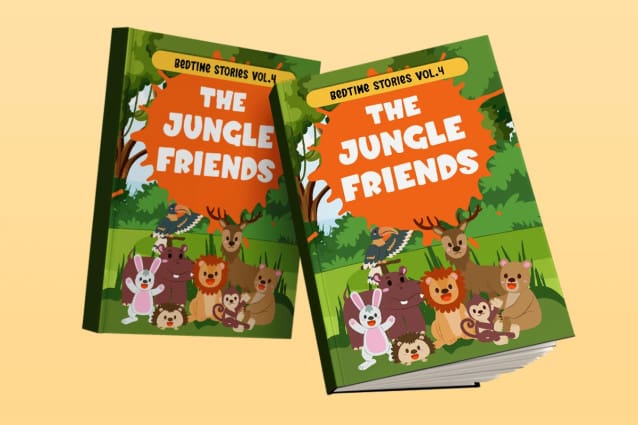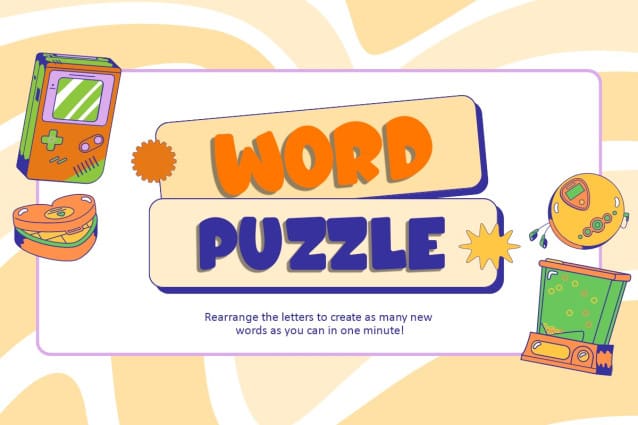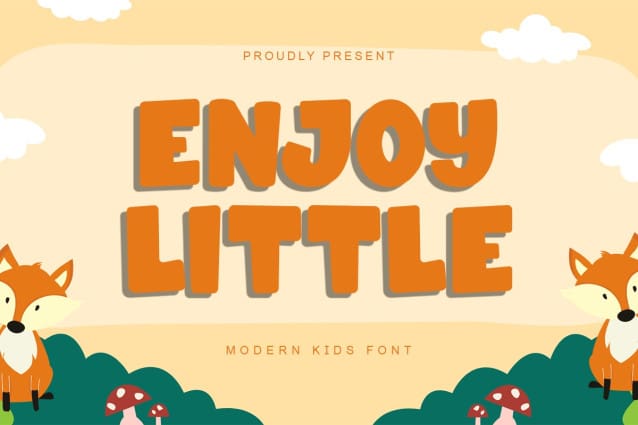
Enjoy Little Font
Enjoy Little Font – Modern Kids Font is one of our modern kid’s fonts. This font is unique and inspired by all kinds of children’s activities. The cute impression of this particular typeface will leave a memorable impression on the children’s minds.
You can use thisEnjoy Little Font– Modern Kids Font for all kinds of printing purposes, such as on school supplies, bags, pencil cases, story books, study books, and decorations on school walls. If placed on various items, the fun and eye-catching design of this typeface will attract the attention of the children almost instantly. Therefore, it is best to use this typeface on any children’s products.
Enjoy Little Font – Modern Kids Font can also be used effectively in the digital world. This font is also suitable for individuals and companies who want to make games for children or to produce a film or video streaming service for young audiences.